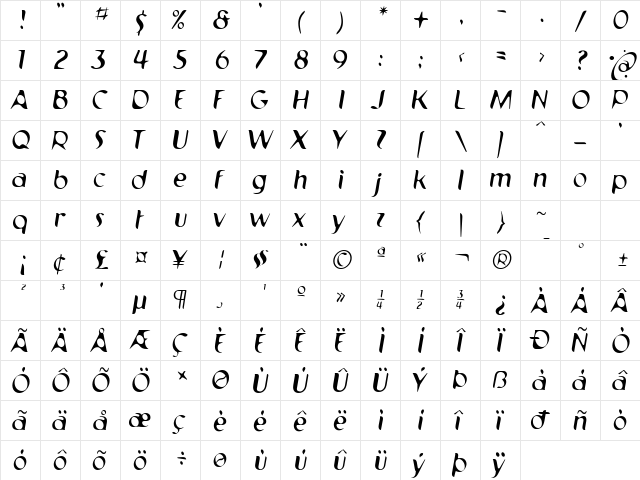
Pilot AL- Font Preview
Pilot AL-
Pilot AL- Font Details
Design Context for Pilot Typeface
Pilot takes a measured approach to typography — its balanced proportions and neutral character make it a reliable workhorse for both digital and print work.